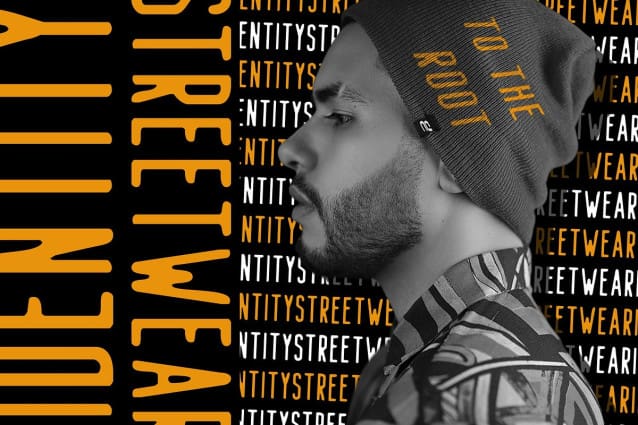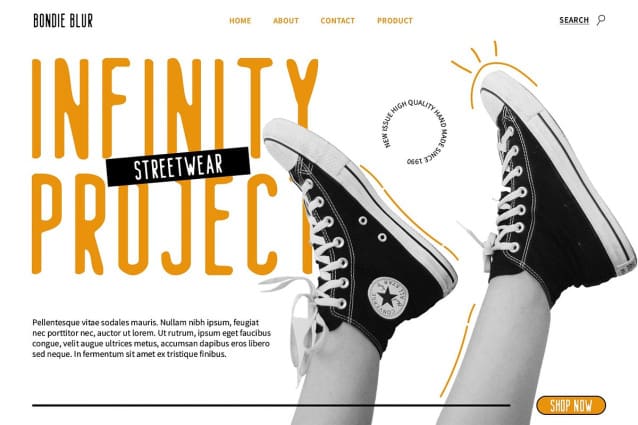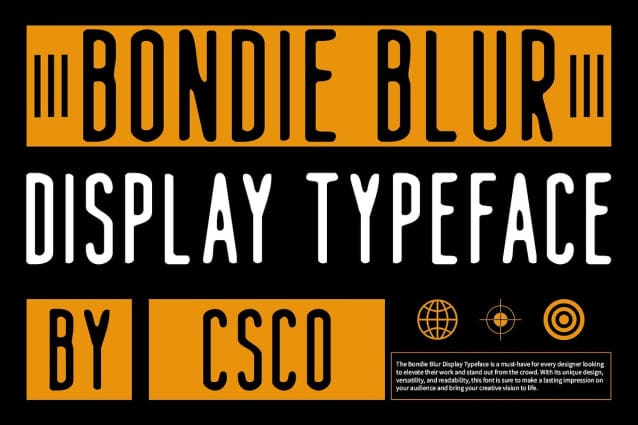
Bondie Blur Font
Bondie Blur Font is a condensed sans-serif font with a blur effect, perfect for modern and dynamic designs. Its sleek and contemporary look adds an edgy and unique touch to any project, ensuring your message stands out.
Ideal for Eye-Catching Designs Perfect for posters, album covers, digital ads, and experimental graphic design, Bondie Blur ensures your creations are both seen and remembered. Its distinctive blur effect enhances the visual appeal, making it an excellent choice for eye-catching designs.
Versatile and Edgy Despite its modern aesthetic, Bondie Blur remains versatile and edgy. Its sans-serif format and condensed style make it suitable for a wide range of projects where a font that combines modern dynamics with unique design is essential for making a statement.
Perfect for Adding a Unique Touch Bondie Blur is ideal for projects requiring a font with a unique touch. Whether you’re designing a poster, album cover, or digital ad, this font will undoubtedly add a distinct and memorable element to your designs.